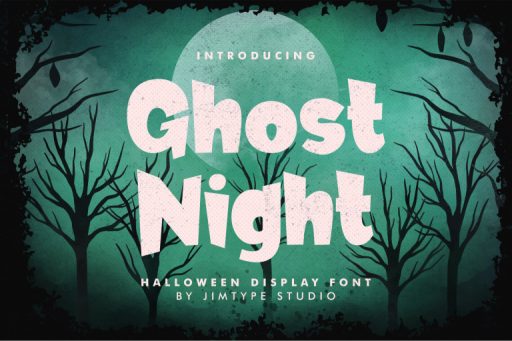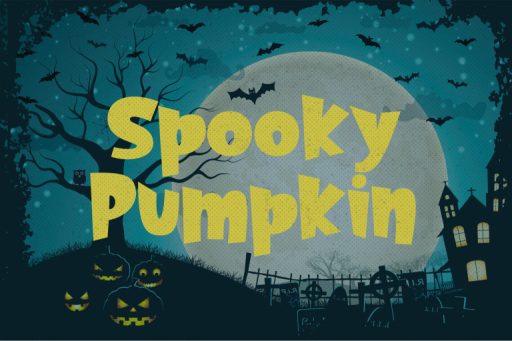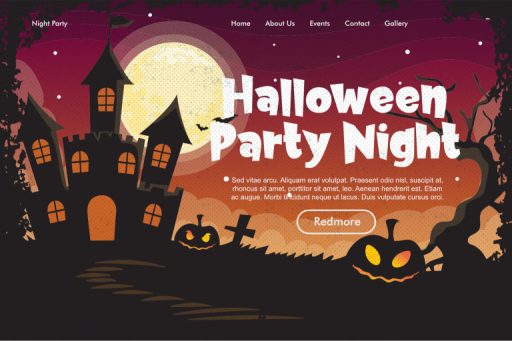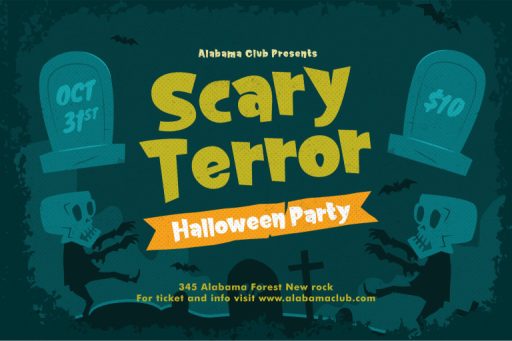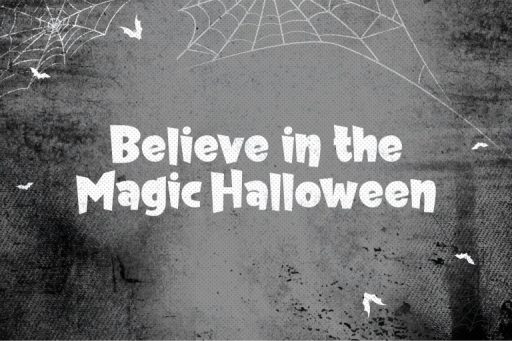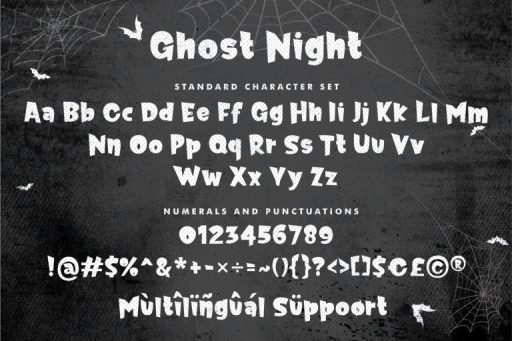
Ghost Night - Halloween Font From Jimtype Studio
Ghost Night Font
Ghost Night – Halloween Font from Jimtype Studio
Discover the enchanting ‘Ghost Night‘ Halloween Font – a perfect blend of unique and stylish! Designed with hauntingly beautiful details, this font is your ultimate tool for creating captivating Halloween designs, eerie posters, and chilling party invitations. Whether you’re seeking a Sans Font or a Display font that adds a unique touch, ‘Ghost Night‘ has you covered. Unleash your creativity and embrace the dark elegance of this unique font. Perfect for ghoulish designs that leave a lasting impression